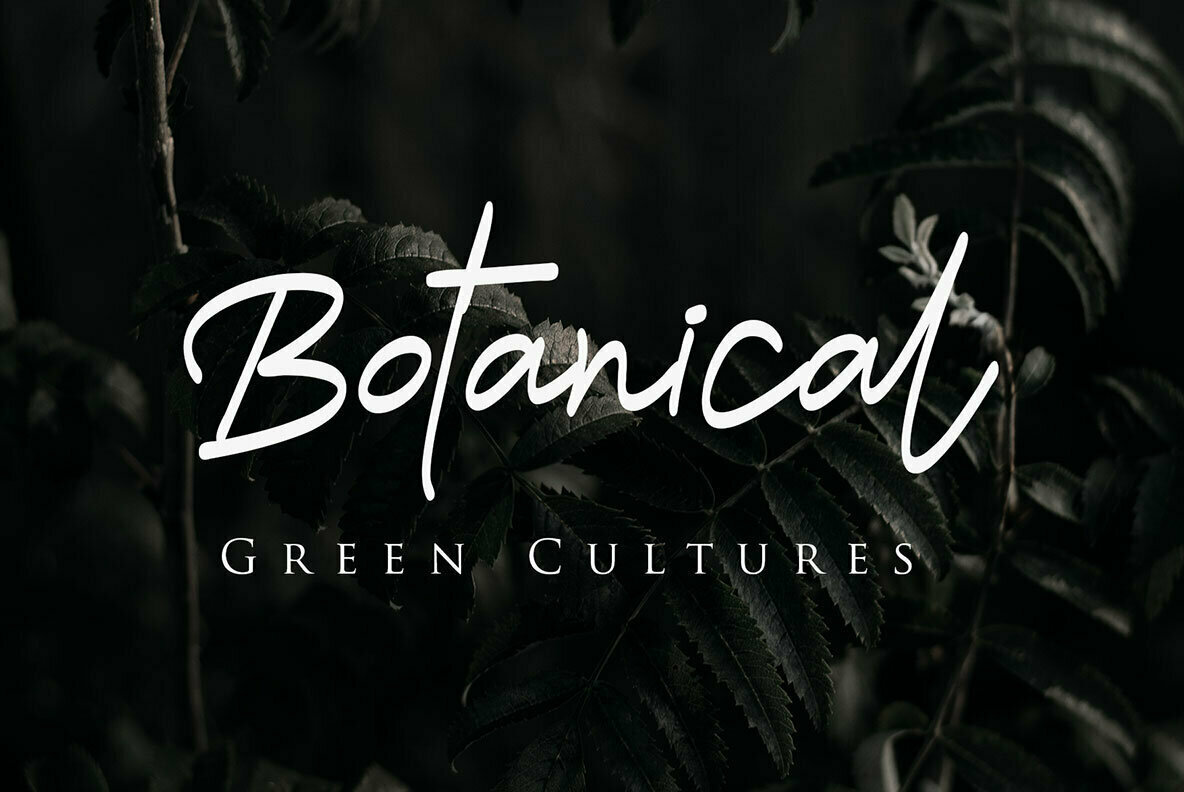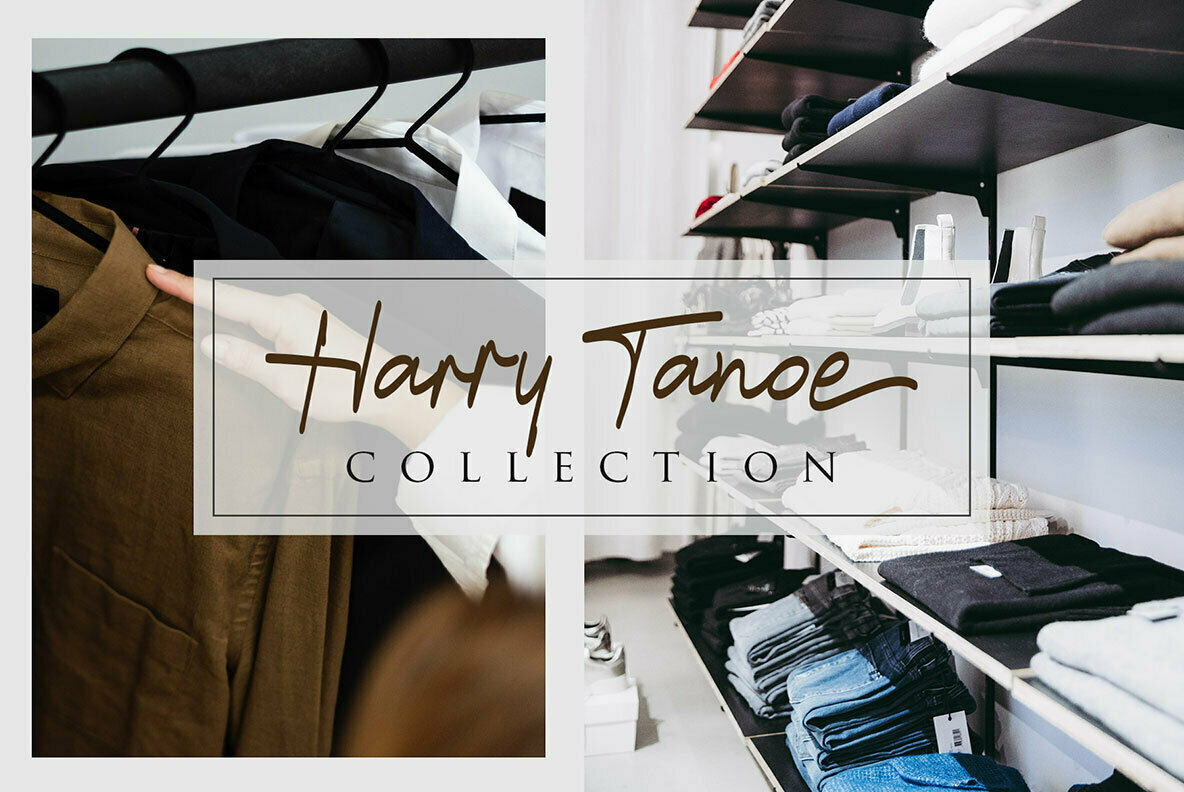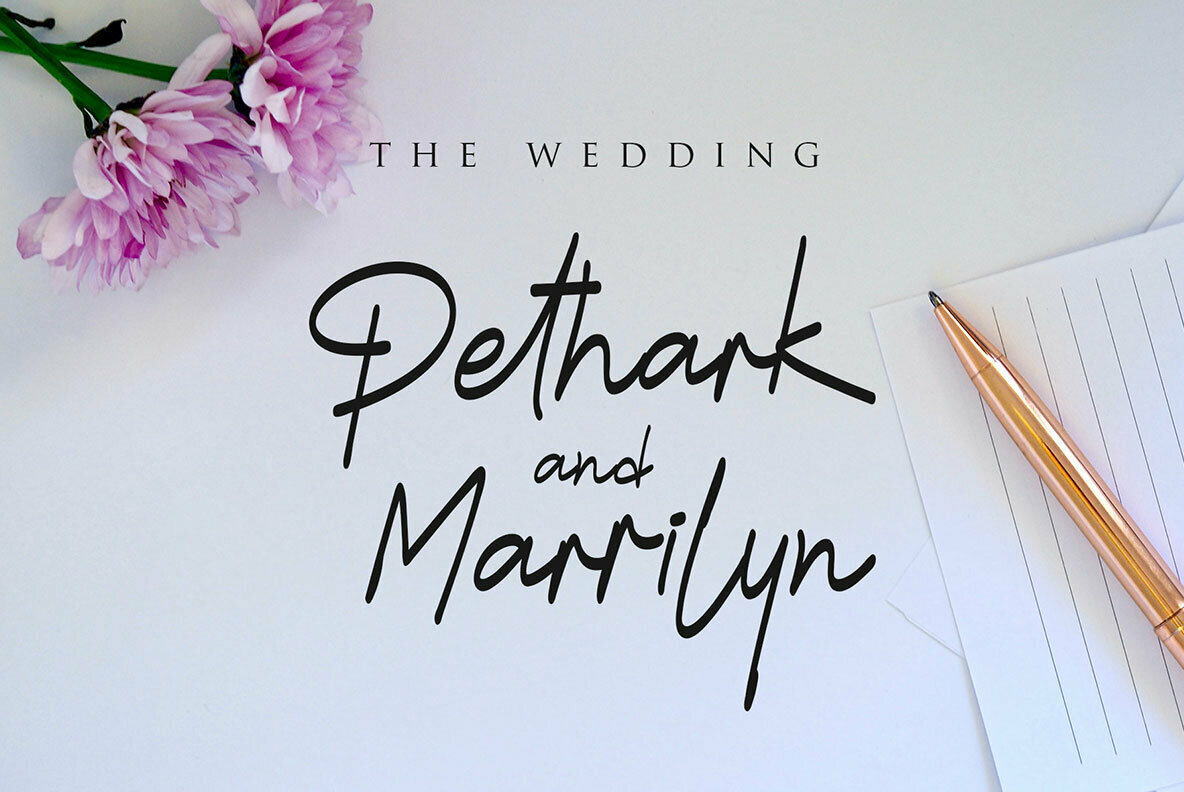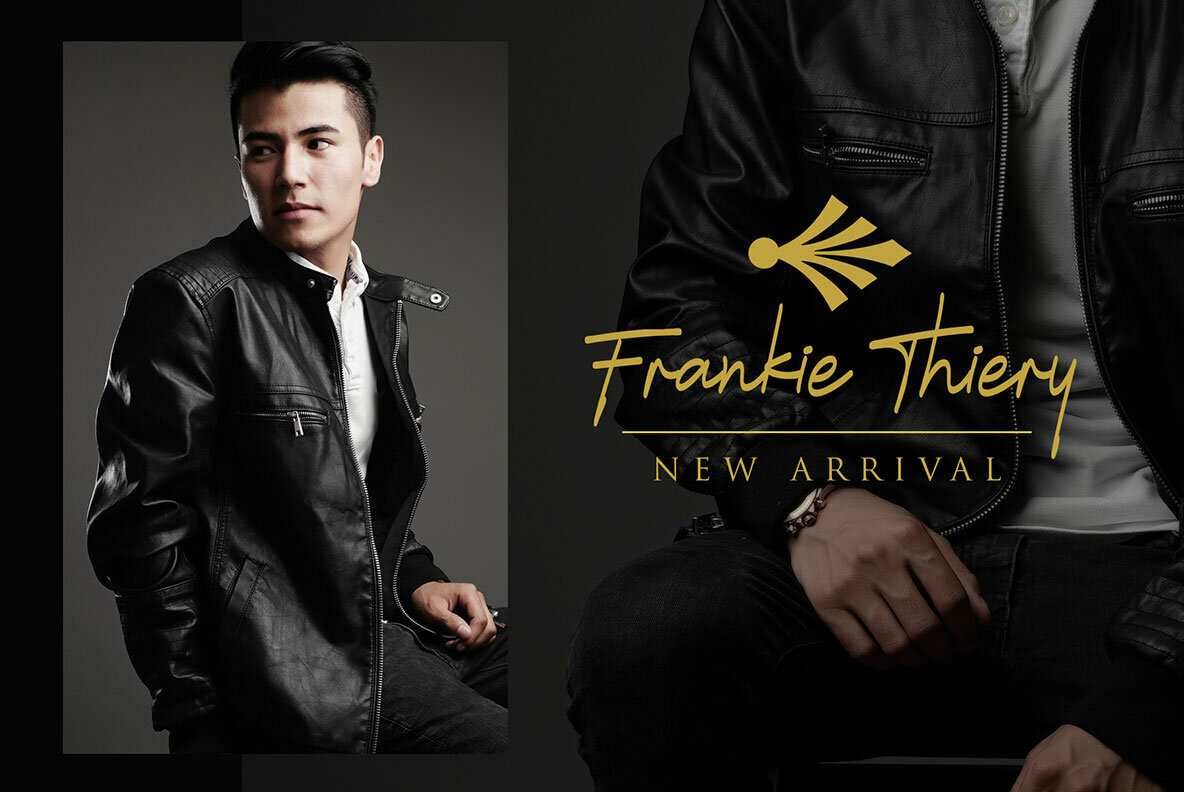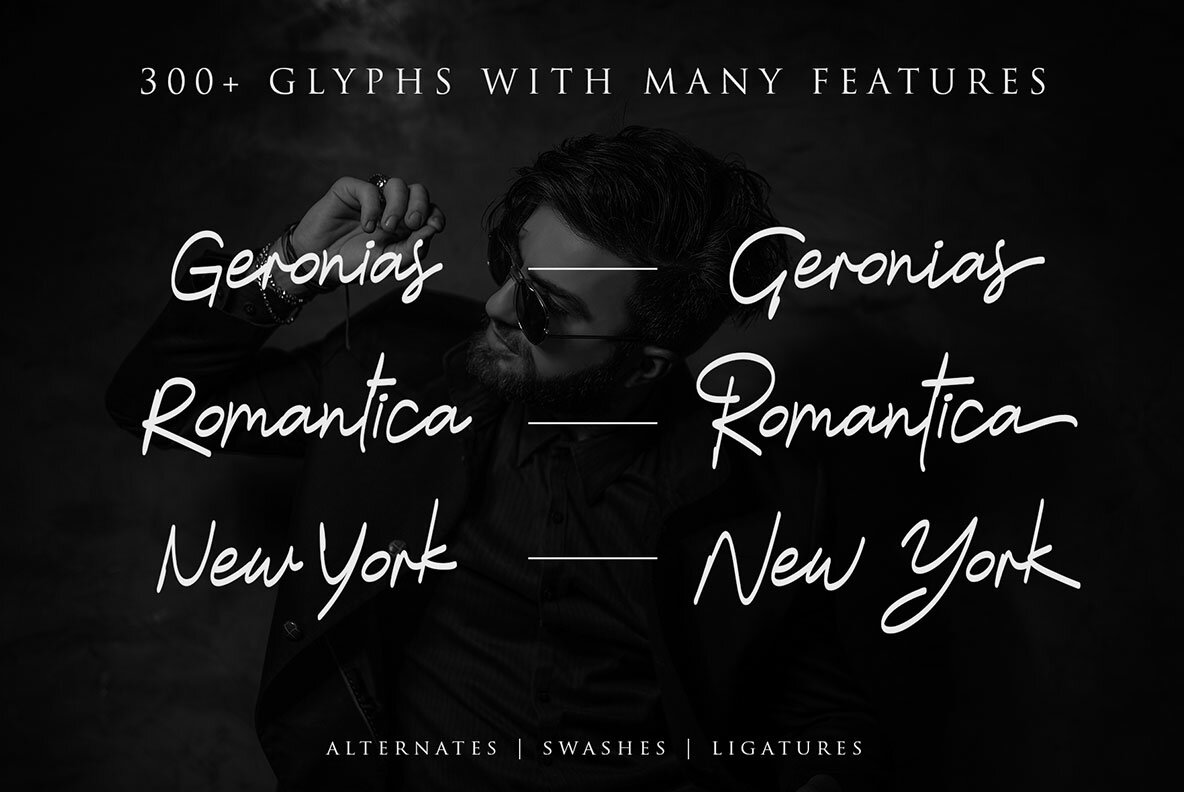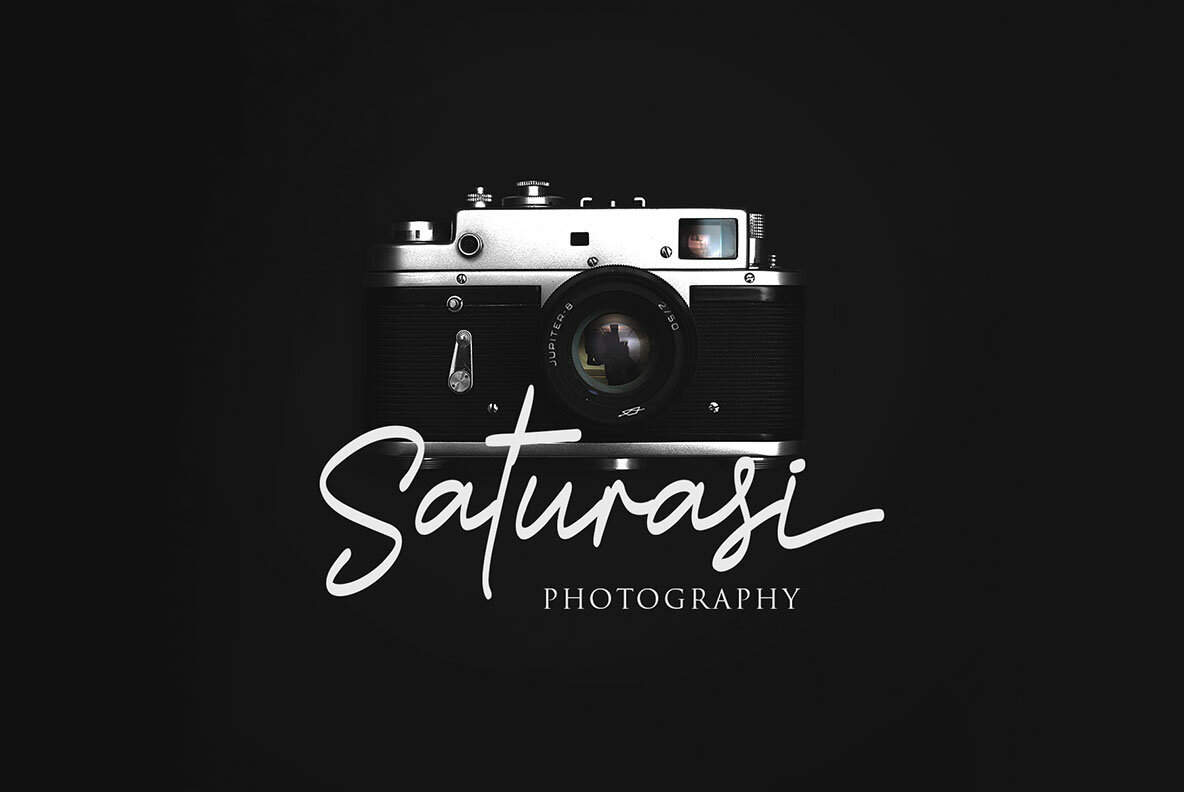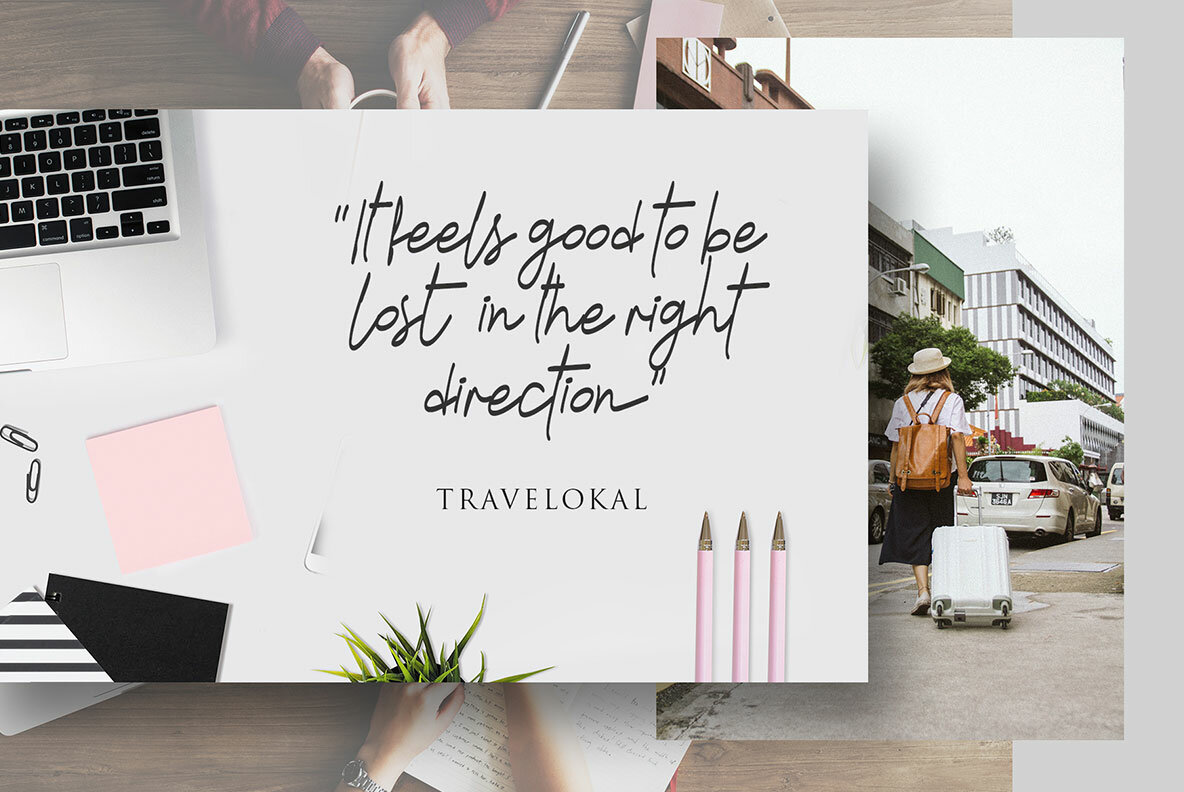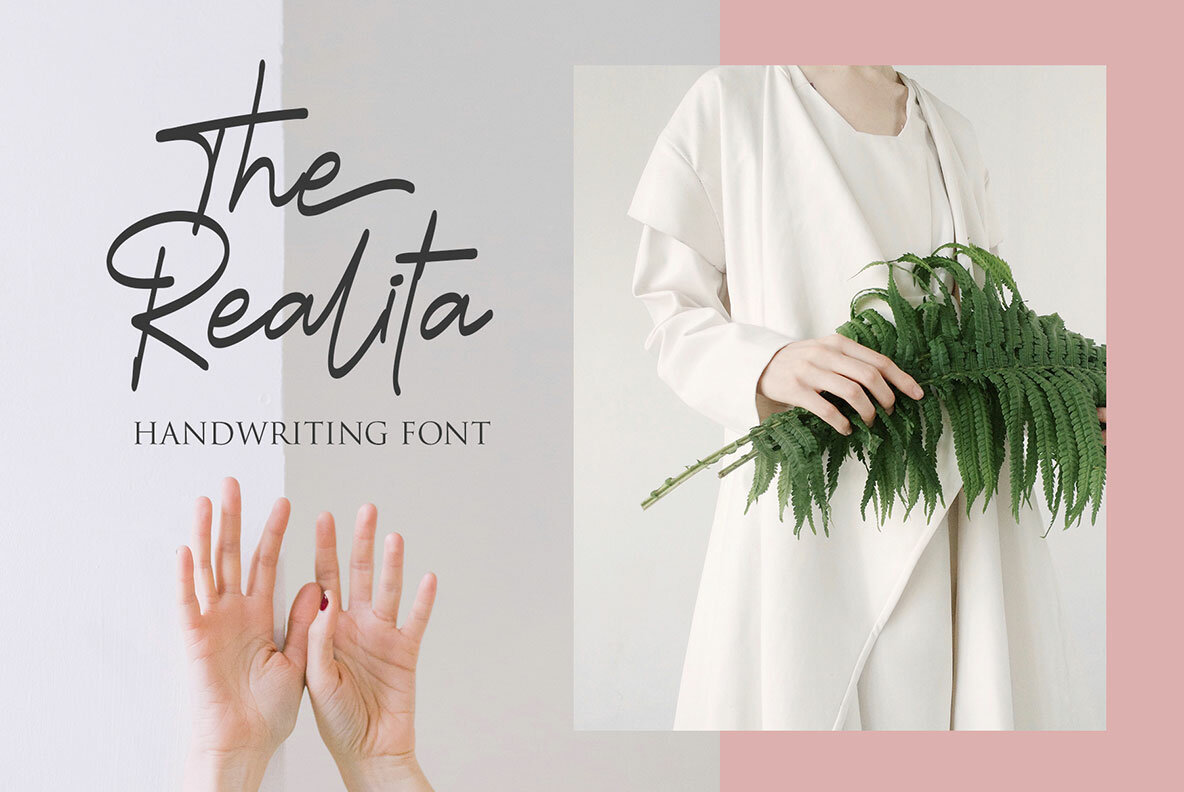
The Realita Font
The Realita
The Realita offers an exquisite blend of simplicity and elegance, making it an ideal choice for fashion projects and beyond. As a monoline script, this font embodies a seamless flow reminiscent of handwritten artistry, meticulously vectorized for precision. Its versatility lends itself beautifully to diverse applications, from branding and logos to wedding invitations and social media design. With over 300 glyphs, The Realita ensures flexibility and creativity in your work. It boasts numerous open-type features, including rich ligatures that infuse your text with natural fluidity. For added flair, explore the swashes and stylistic alternates that enhance your design. These features are optimized for professional tools like Adobe Photoshop, Illustrator, and Indesign, yet can be accessed through Character Map on Windows and Font Book on Mac for user-friendly experience.The Realita: Handcrafted Monoline Script Font